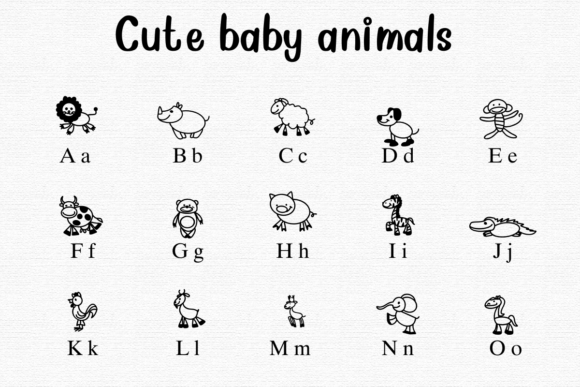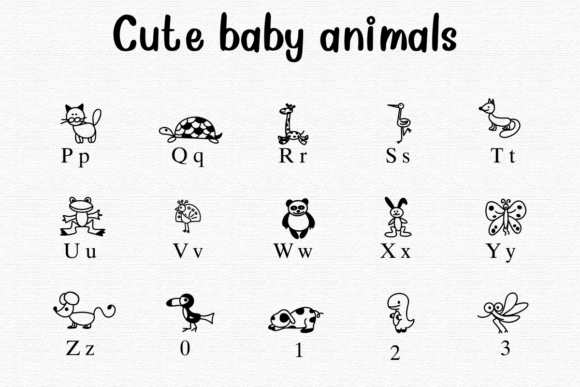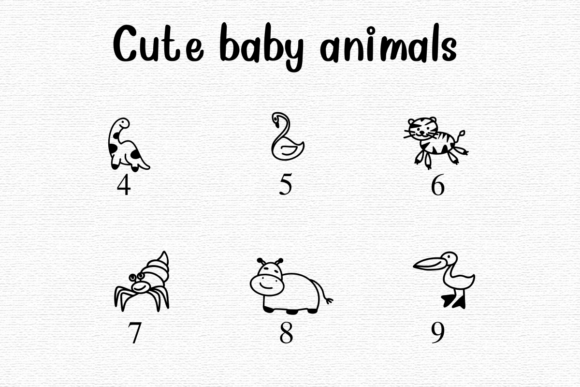
Introduction to Cute Baby Animals Font
Cute Baby Animals is a dingbats font with a sketched style.
This font can enhance your creative projects such as wedding invitations, DIY, crafts, decorations, logos, and many other creative ideas .